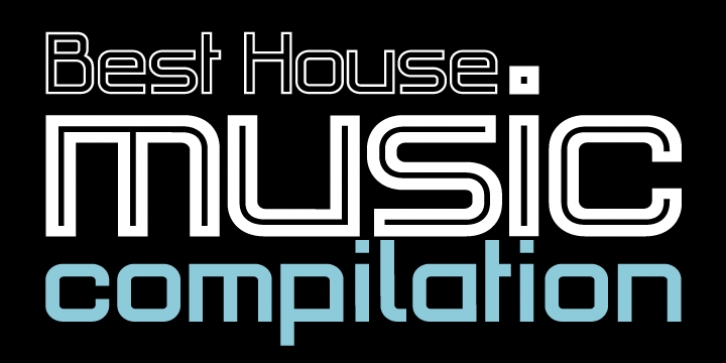
PF Haus Square Pro was designed by Kanella Arapoglou and published by Parachute. PF Haus Square Pro contains 6 styles and family package options.
The minimal character of this typeface with its direct reference to Bauhaus, manages to keep the balance between strict geometric structure and elegance. It strays from monotonous repetitions and works equally well with Latin and Greek, while it really hits home with Cyrillic.
Now, in its 3rd major upgrade comes equipped with all that's needed for an international career. In total 602 characters offer support for all European languages in six different variations. Finally, five special OpenType features offer typographic solutions which includes a stylistic alternate set for Greek and Cyrillic.
· PF Haus Square Pro Light
· PF Haus Square Pro
· PF Haus Square Pro Bold
· PF Haus Square Pro Light Outline
· PF Haus Square Pro Outline
· PF Haus Square Pro Bold Outline